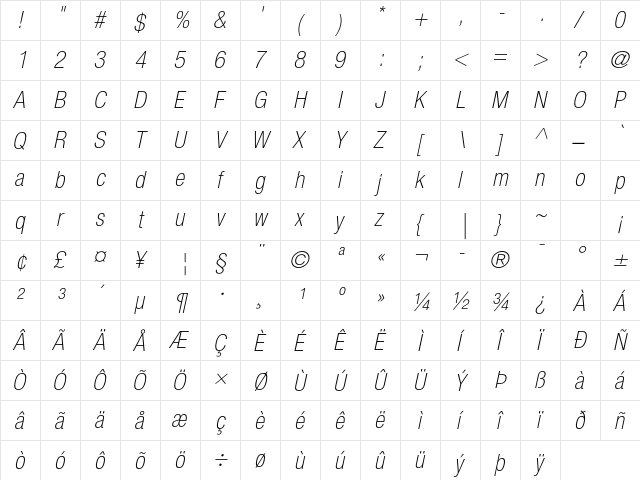
Helvetica Neue LT Std 37 Thin Condensed Oblique Font Preview
| Designer | Linotype Staff |
Design Context for Helvetica Neue LT Std Typeface
Helvetica Neue LT Std takes a measured approach to typography — its balanced proportions and neutral character make it a reliable workhorse for both digital and print work. Its italic angle brings a sense of urgency and motion to the letterforms. The delicate stroke weight brings airiness and refinement to layouts. The condensed width makes it efficient for tight spaces without sacrificing legibility.
Pro Tip: Try Helvetica Neue LT Std for annotation and caption copy alongside an upright companion — the contrast in angle creates a dynamic but ordered typographic system.